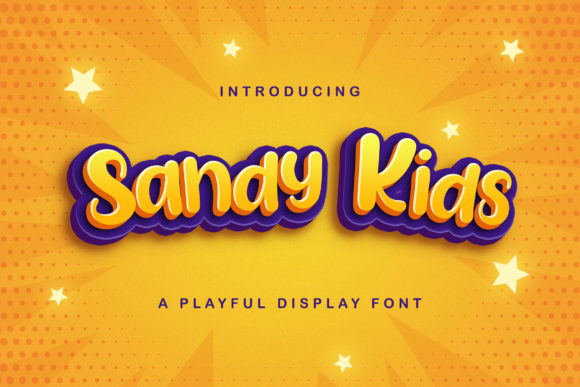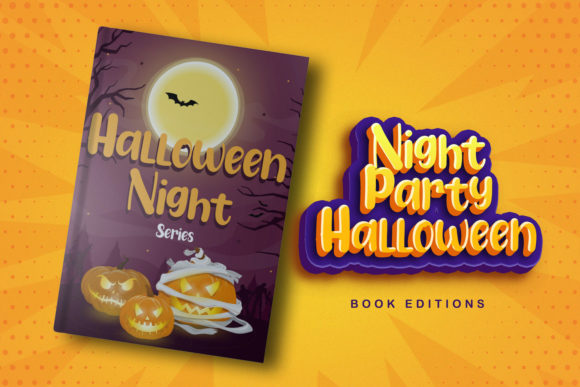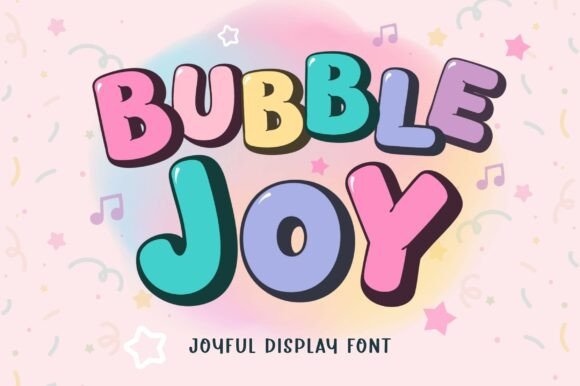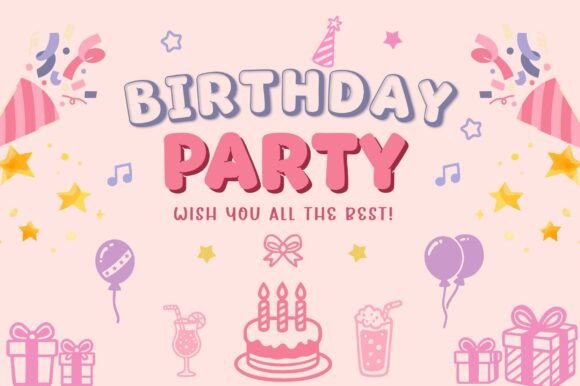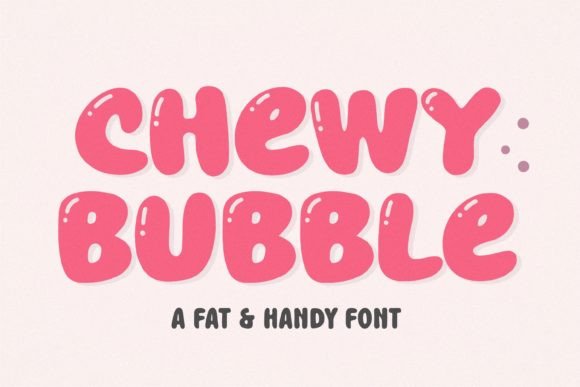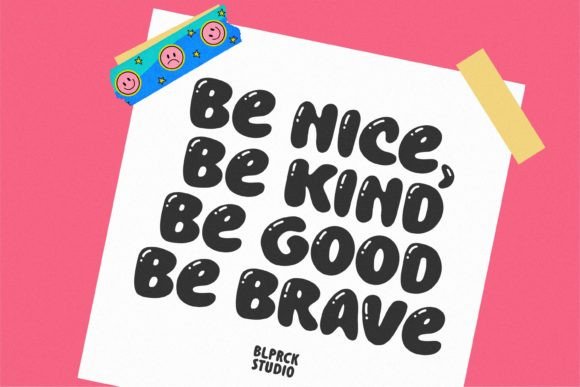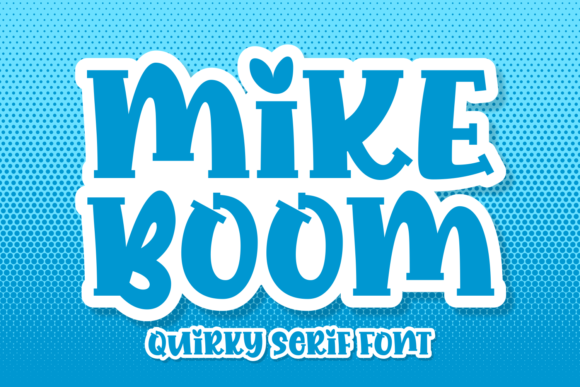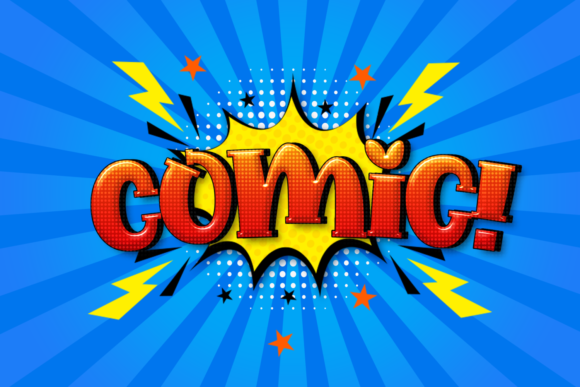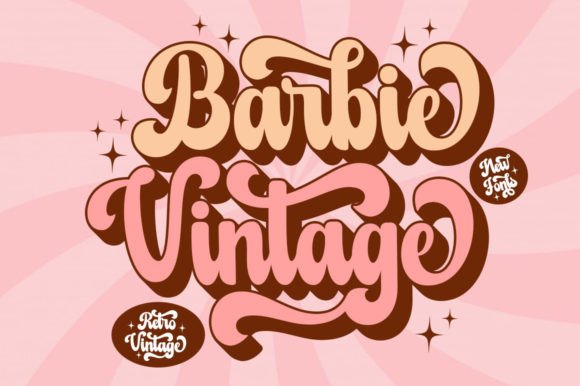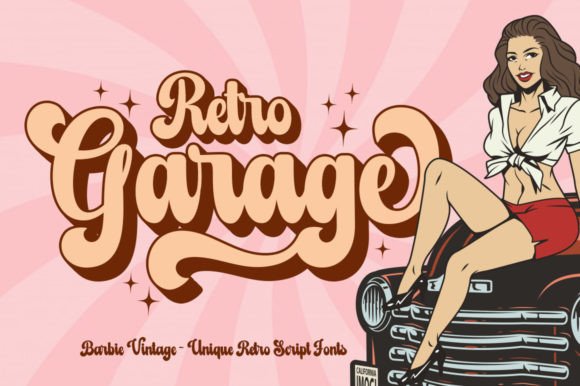
🧸 Part 1: Bold & Playful Best KDP Cover Fonts
Best for kids’ coloring books, school planners, and high-energy niches.
- 1. Sandy Kids Display Font
- 2. Bubble Joy Layered Font
- 3. Chewy Bubble Typography
- 4. Mike Boom Font
- 5. Barbie Vintage Font
Part 1: Bold, Cute & Playful Fonts
If you are publishing in child-centered or high-energy niches—think activity books, preschool handwriting logs, primary school academic planners, or kawaii-styled journals—skinny or ultra-elegant fonts are your worst enemy. You need typefaces with massive weight, soft edges, and an undeniable sense of fun.
These fonts need to be “bubbly” enough to pop off a brightly colored background and be easily readable by parents scrolling on their phones.
Here are the standout playful options on Creative Fabrica right now:
1. Sandy Kids Display Font
- Best For: Kindergarten activity books, elementary school planners, and cute kids’ journals.
Sandy Kids is an incredibly joyful, adorable display font that brings an instant handmade warmth to any layout. It has that authentic, neat childhood lettering style that completely avoids looking rigid or digital.
If you are designing primary school trackers or primary academic diaries, this typeface makes the cover look welcoming, friendly, and highly trusted by parents and teachers alike.
2. Bubble Joy Layered Font
- Best For: High-energy activity covers, layered title typography, and fun sticker-book covers.
Bubble Joy is a massive asset for KDP publishers because it comes in both Regular and Outline styles. These two layers stack perfectly, allowing you to create trendy, eye-catching title shadows and sticker-style graphics in seconds without manual tracing.
It stays remarkably sharp and legible even when scaled down to a tiny mobile Amazon thumbnail, making it a perfect tool for standout coloring books and birthday-themed low-content assets.
3. Chewy Bubble Typography
- Best For: Toddler logbooks, fat-lettering coloring book titles, and whimsical nursery notebooks.
True to its name, Chewy Bubble features bold, ultra-rounded forms that look exactly like smooth, playful bubbles floating on your cover. The generous spacing and carefully crafted fat curves give it an undeniable sense of fun and whimsy.